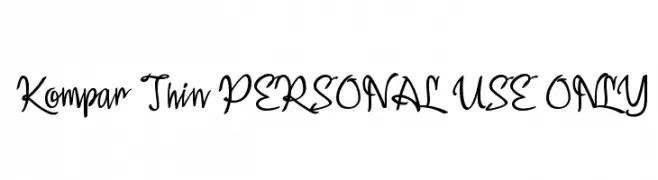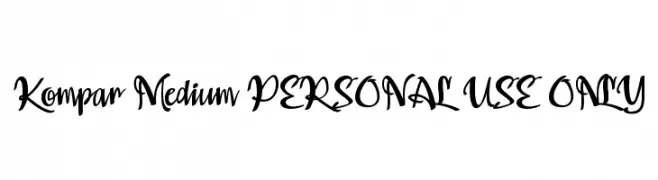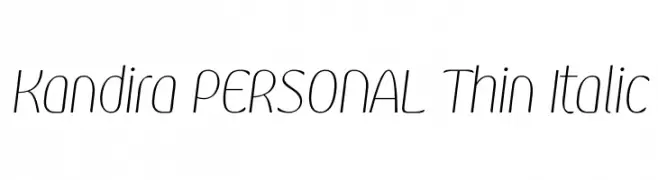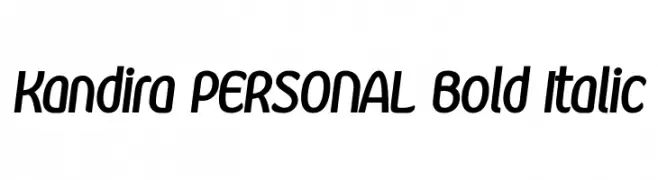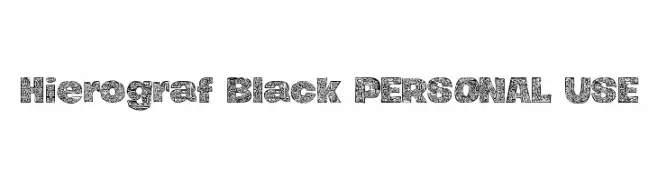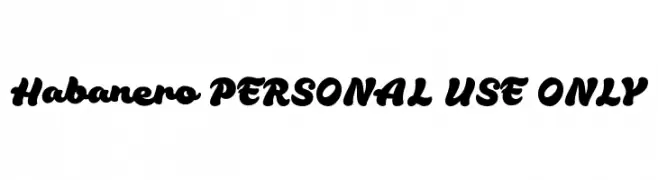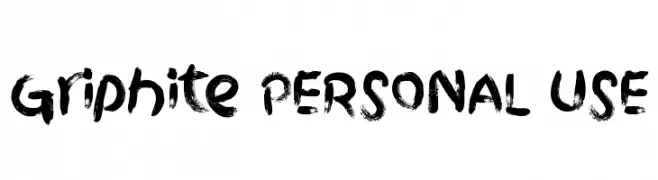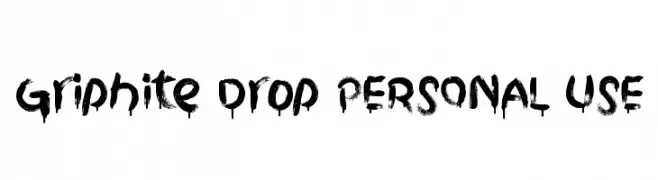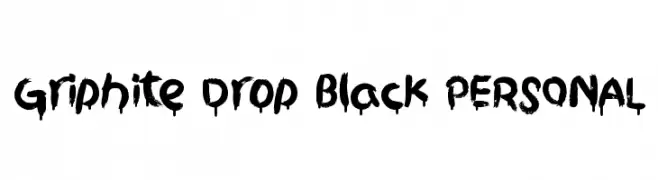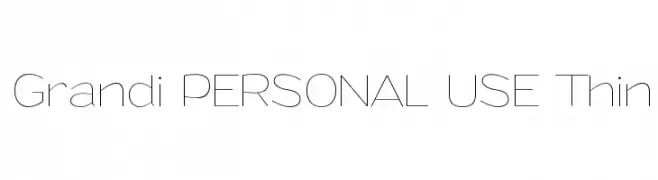
A bold, dynamic script font with sweeping curves and pronounced strokes.
A dynamic cursive script with bold, sweeping strokes and elegant flourishes.
A bold and dynamic script font with dramatic curves and angles.
A dynamic script font with elegant curves and artistic flair.
A bold, rounded font with a modern and playful style.
A modern, sleek sans-serif font with elongated, slightly curved characters.
A sleek, thin, italicized font with a modern and elegant design.
A bold, rounded font with a modern and playful style.
A modern, light, and italic font with a sleek and elegant design.
A bold, italicized font with smooth, rounded edges and a modern, sleek appearance.
A sleek, modern italic font with thin, elongated characters.
A sleek, modern font with thin, elongated characters and smooth curves.
A bold, italic font with a dynamic and modern style.
A sleek, modern sans-serif font with smooth curves and a clean design.
A modern, italicized font with smooth curves and a sleek design.
A sleek, modern font with elongated, narrow characters and a minimalist design.
A bold, italic font with a modern and dynamic style.
A bold, modern sans-serif font with smooth, rounded edges and consistent character spacing.
A decorative font with intricate pattern-filled characters.
A bold, blocky font with thick strokes and rounded edges.
A decorative font with intricate patterns and bold outlines.
An intricate, decorative font with abstract patterns within each character.
A bold, outlined font with a playful, modern style.
A bold, flowing script font with connected characters and dynamic style.
A bold, brush-style font with a hand-painted, textured appearance.
A bold, expressive brushstroke font with a dynamic and textured appearance.
A bold, brush-textured font with a dynamic, artistic style.
Bold, graffiti-inspired font with a dripping effect and urban style.
A thin, modern font with clean lines and a minimalist design.
A bold, italicized font with strong, dynamic strokes.
( Måns Grebäck - www.mansgreback.com )
A sleek, modern, light italic sans-serif font with elegant slanting.
( Måns Grebäck - www.mansgreback.com )
A bold, high-contrast font with thick strokes and slightly condensed characters.
( Måns Grebäck - www.mansgreback.com )
A bold, modern font with strong, thick strokes and a geometric influence.
( Måns Grebäck - www.mansgreback.com )
A thin, italic font with a sleek and modern design.